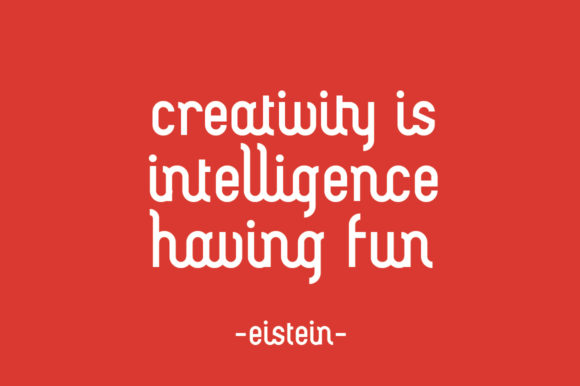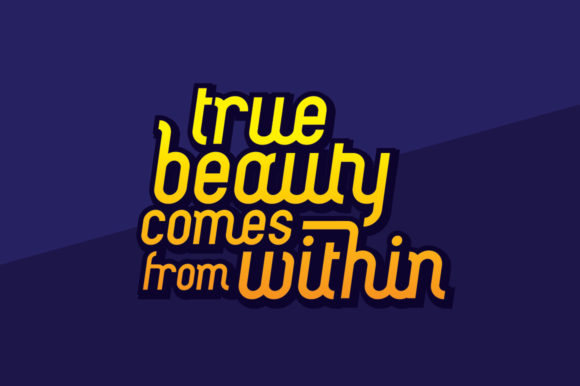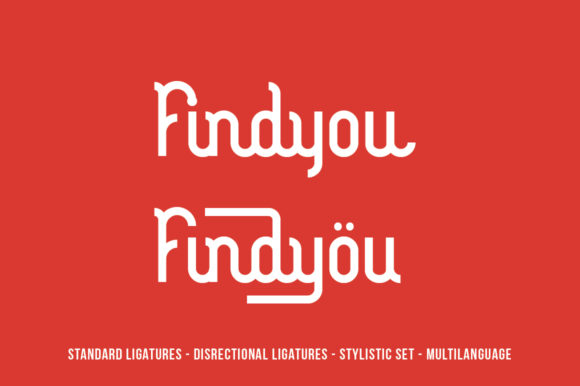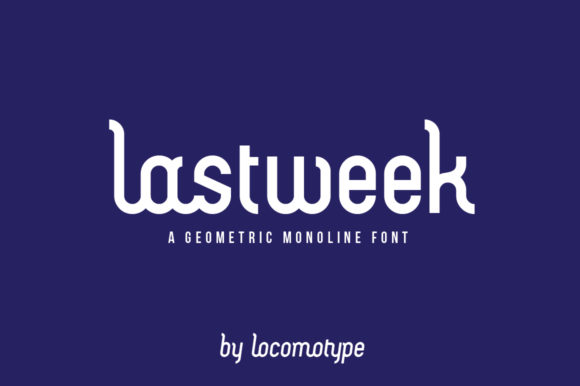
Lastweek Font
The Lastweek is a striking display font. It’s combining rounded geometric shapes, with a solid monoline and fun scripts.
It can be an alternative to futuristic and high-tech fonts. Available in regular and italics as well as some opentype features like ligatures and stylistic sets; To make it easier for you to create cool and elegant designs.